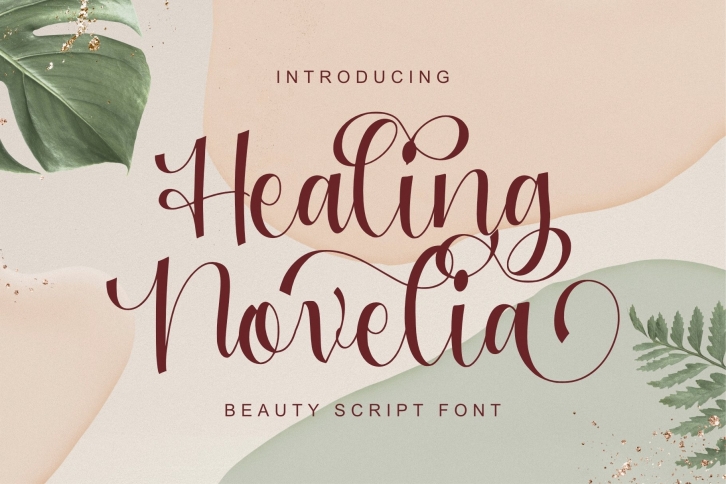
Healing Novelia is a gorgeous font that was realeased on July 30, 2021. The font can be used in many style contexts and design environments. Perfect for invitations, magazines, websites, logos, and more! It was designed by Good Java Studio and the file size is 5.96 MB. Thanks for checking out this font!